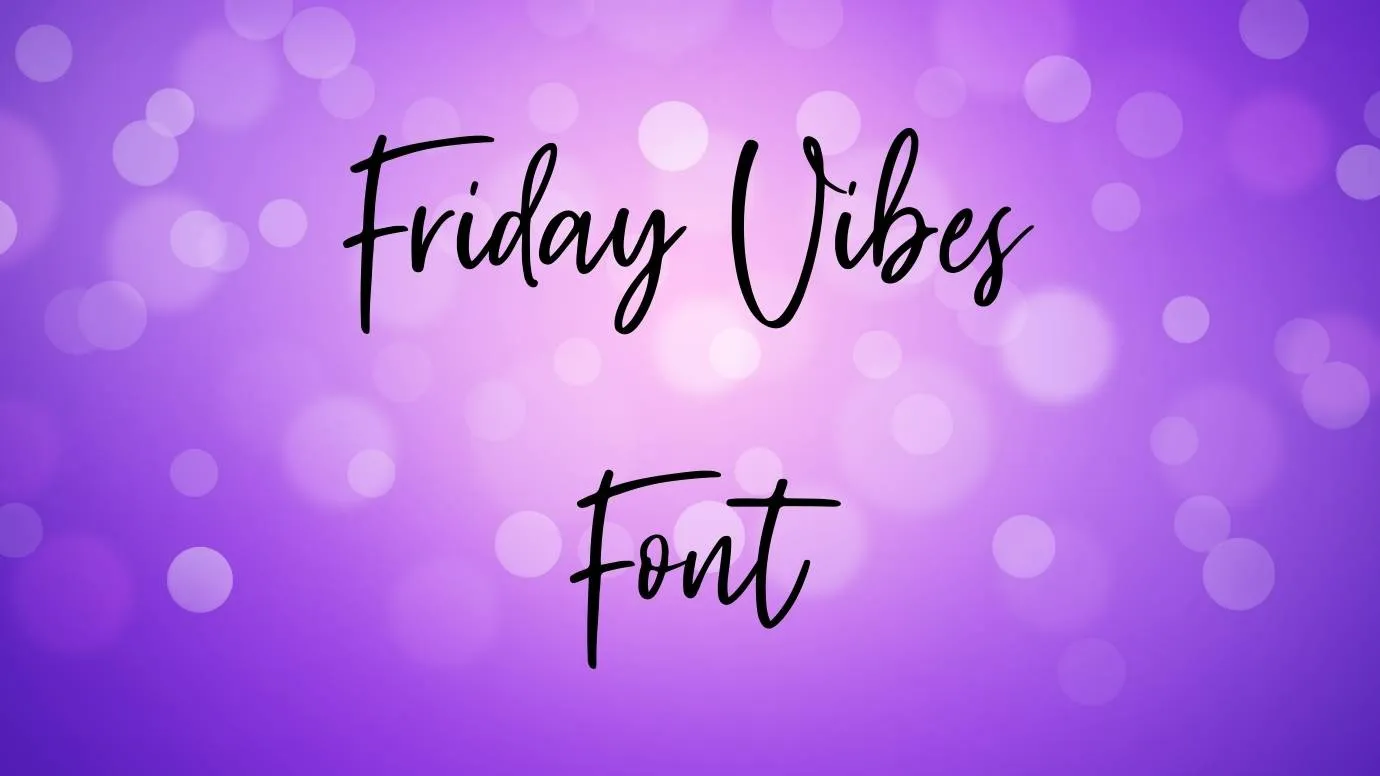
Friday Vibes Font Family is a famous script font that was designed by Sronstudio for the first time. This modern look font comes in only lowercase and uppercase letters. This font comes in both OTF and TTF file formats.
Friday Vibes Font